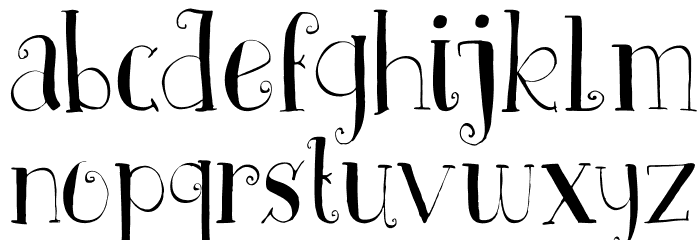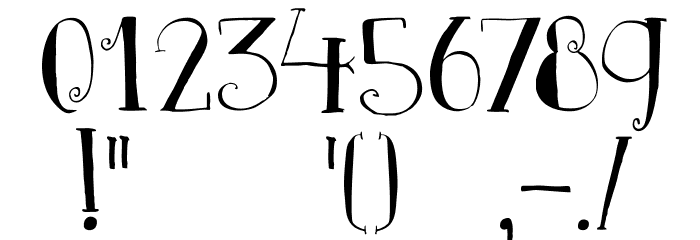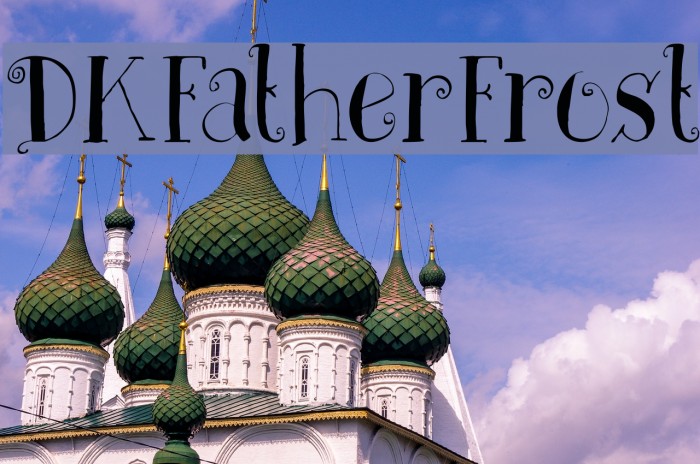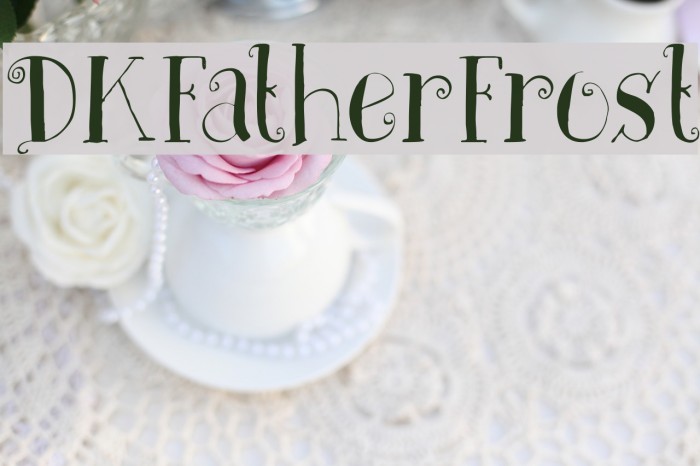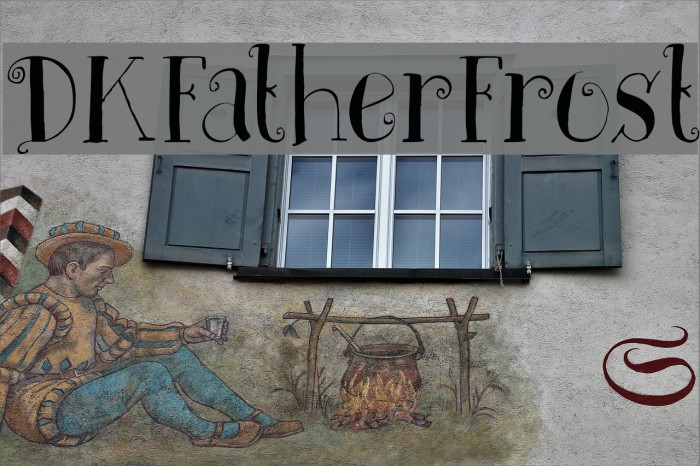
DKFatherFrost Font
This whimsical and playful font features a unique blend of decorative elements and classic letterforms. Each character is adorned with charming swirls and curls, adding a touch of elegance and fantasy. The uppercase letters are bold and striking, while the lowercase letters maintain a consistent style with a slightly more delicate appearance. The numbers and special characters follow the same decorative theme, making the font versatile for various creative applications. Its distinctive style is perfect for projects that require a touch of magic and creativity.
A whimsical, decorative font with charming swirls and curls.
- Proposed Projects: Ideal for holiday cards, children's book covers, fantasy-themed posters, and whimsical branding.